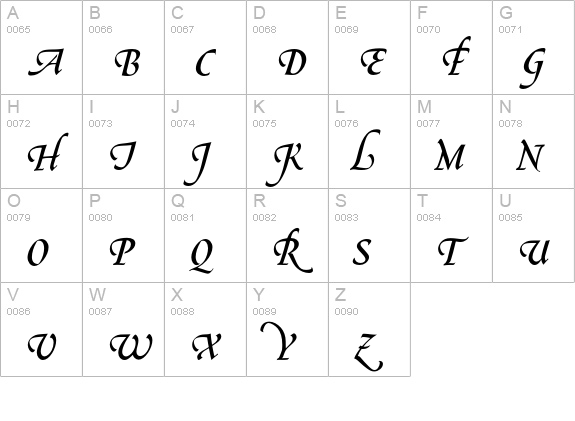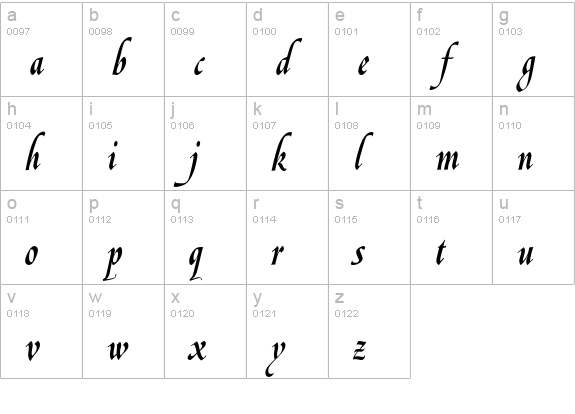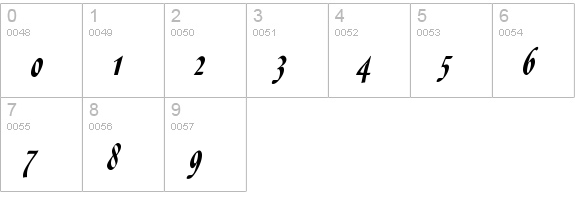
Le Griffe Std is a stunning and versatile font that exudes a sense of elegance and sophistication. With its graceful letterforms and delicate curves, this typeface effortlessly captures attention and adds a touch of class to any design project. Designed with meticulous attention to detail, Le Griffe Std is a perfect blend of classic and contemporary elements. Its clean lines and refined strokes make it highly legible, ensuring readability even at smaller sizes. Whether used for headlines, body text, or branding materials, this font makes a statement and commands attention. One of the most remarkable aspects of Le Griffe Std is that it is freely available to download at FontsMarket.com. This means that designers and creatives can easily access and utilize this font without any cost or restrictions. This generosity allows for endless possibilities and opens up a world of creative opportunities. Le Griffe Std's wide range of weights and styles further enhances its versatility. From the sleek and modern Light weight to the bold and impactful Black weight, this font can adapt to various design needs. Additionally, its extensive character set includes numerous ligatures, alternates, and swashes, providing designers with even more creative options. Whether used in print or digital media, Le Griffe Std adds a touch of sophistication and refinement to any project. Its timeless appeal and effortless beauty make it a must-have font in every designer's toolkit. Download Le Griffe Std for free at FontsMarket.com and elevate your designs to new heights of elegance and style.